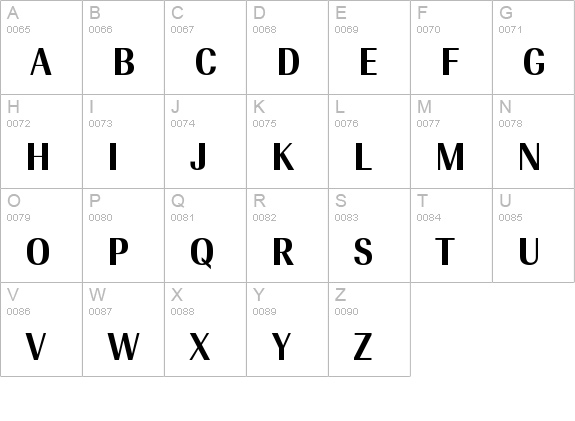
RadiantEFText-DemiBold Font Details
RadiantEFText-DemiBold is a sub-bold, structured variant in the RadiantEFText typeface family \xE2\x80\x94 well suited to sub-headlines and emphasised passages.
RadiantEFText-DemiBold is a captivating and sophisticated font that exudes a sense of elegance and professionalism. Its bold and striking design commands attention, making it perfect for headlines, titles, and branding projects. This font features clean lines and sharp edges, giving it a modern and sleek appearance. The demi-bold weight adds a touch of strength and confidence to any design, while still maintaining its refined and polished aesthetic. RadiantEFText-DemiBold is incredibly versatile and can be used in a variety of design contexts. Whether you are creating a logo, designing a website, or crafting a magazine spread, this font will effortlessly elevate your project to new heights. One of the best parts about RadiantEFText-DemiBold is that it is free. Yes, you read that right - this stunning font is freely available to download at FontsMarket.com. This means that you can easily access and use this font without any restrictions or limitations. So why wait? Enhance your designs with the captivating beauty of RadiantEFText-DemiBold. Download it today and let your creativity shine with this amazing font.